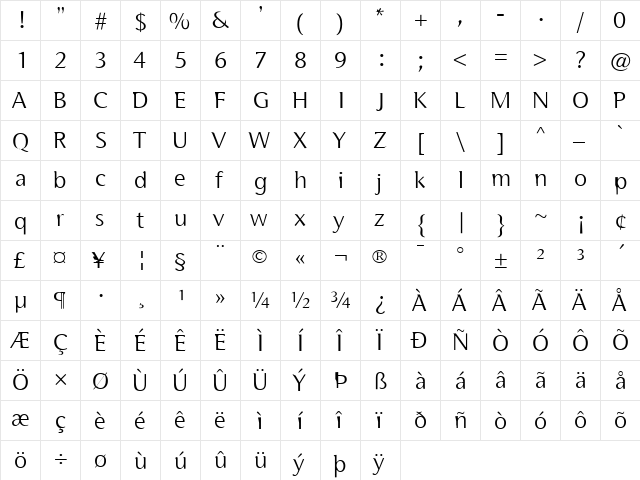
Tainted Regular
Design Context for Tainted Typeface
Tainted offers clean, dependable letterforms without strong stylistic allegiance, making it a practical choice for designers who need flexibility.
Pro Tip: Use Tainted in both headline and body roles to test its range before committing to a single application.